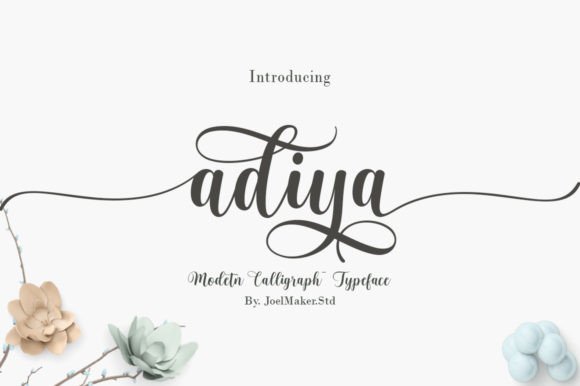
The Elegance of Adiya Font: A Designer’s Delight
I’ll never forget the time I was working on a wedding invitation project, and my client asked for a font that exuded elegance and sophistication. I scoured the internet, tried out countless fonts, but nothing seemed quite right. That was until I stumbled upon Adiya Font. Its flowing script and seamless lettering immediately caught my eye, and I knew I had found the perfect fit. In this article, I’ll share my experience with Adiya Font, its features, and how to make the most of it in your designs.
What Makes Adiya Font Special?
Adiya Font is a stylish and exquisite script font that is sure to add a touch of sophistication to your work. Each letter flows effortlessly into the next, creating a seamless and elegant look. Whether you’re designing invitations, logos, or anything in between, this font is a great choice.
- ✨ Elegant and sophisticated design
- ✅ Highly versatile for various design projects
- ✨ Beautifully crafted letters that flow seamlessly into each other
While Adiya Font is an excellent choice, there are a few things to keep in mind. For example, ⚠️ it may not be the best choice for body text due to its script nature. Also, 🤔 some users may find the font a bit too ornate for certain projects.
The Backstory of Adiya Font
While the origins of Adiya Font are unclear, it’s likely that it was designed with inspiration from classic calligraphy and elegant script fonts. The creator of Adiya Font likely aimed to craft a font that would be both beautiful and versatile, suitable for a wide range of design projects.
| Font Name | Adiya Font |
| Author | joelmaker |
Q: What is Adiya Font?
A: Adiya Font is a stylish and exquisite script font designed for creative projects, such as invitations, logos, and more.
Q: Is Adiya Font PUA encoded?
A: Yes, Adiya Font is PUA encoded, making it easy to access glyphs and swashes.